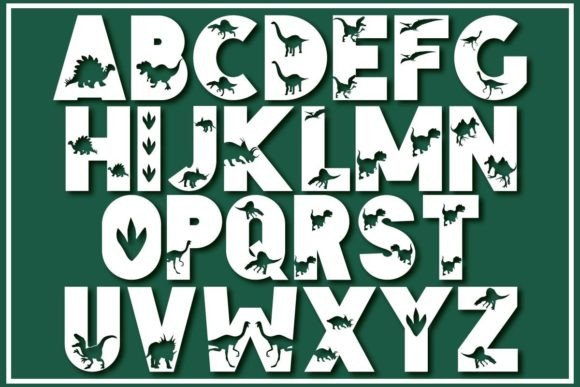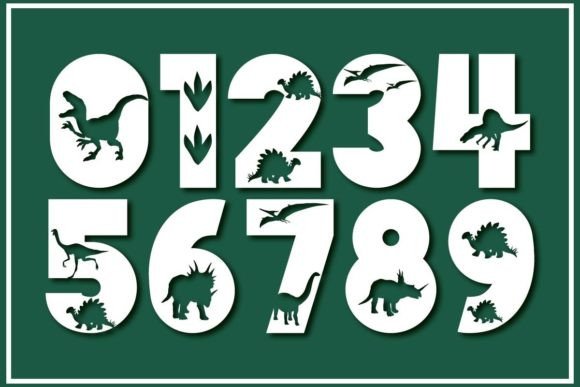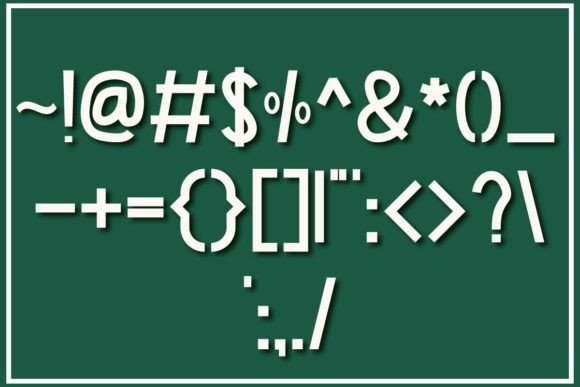
Dino Font: A Fun and Chunky Decorative Font for Crafty Ideas
Are you looking for a font that can add a touch of playfulness and whimsy to your designs? Look no further than the Dino Font, a fun and chunky lettered decorative font that features lovely dinosaurs as ornaments. This original look is perfect for a wide range of crafty ideas, from letterheads and titles to stationery.
What is Dino Font?
Dino Font is a unique and eye-catching font that combines bold, chunky letters with adorable dinosaur illustrations. The font is designed to be fun and playful, making it perfect for projects that require a touch of personality. Each letter is carefully crafted to be distinctive and easy to read, while the dinosaur ornaments add a delightful touch of whimsy.
Features of Dino Font
- Fun and playful design: The Dino Font features a fun and playful design that is sure to capture the attention of your audience.
- Chunky letters: The font features bold, chunky letters that are easy to read and perfect for titles, headings, and emphasis.
- Dinosaur ornaments: The font includes a range of adorable dinosaur illustrations that can be used as ornaments to add a touch of personality to your designs.
- Versatile: The Dino Font is versatile and can be used for a wide range of projects, from letterheads and titles to stationery and more.
Uses for Dino Font
The Dino Font is perfect for a wide range of crafty ideas, including:
- Letterheads and titles: Add a touch of personality to your letterheads and titles with the Dino Font.
- Stationery: Create fun and playful stationery, such as greeting cards, invitations, and thank-you cards.
- Signs and posters: Use the Dino Font to create eye-catching signs and posters for events, sales, and promotions.
- Digital graphics: Use the Dino Font to create fun and playful digital graphics, such as social media graphics, blog headers, and more.
Why Choose Dino Font?
There are many reasons why you should choose the Dino Font for your next project. Here are just a few:
- Unique and eye-catching: The Dino Font is a unique and eye-catching font that is sure to capture the attention of your audience.
- Easy to read: Despite its playful design, the Dino Font is easy to read and can be used for both headings and body text.
- Versatile: The Dino Font is versatile and can be used for a wide range of projects and applications.
- Fun and playful: The Dino Font is perfect for projects that require a touch of personality and whimsy.
Tips for Using Dino Font
Here are a few tips for using the Dino Font:
- Use it sparingly: While the Dino Font is fun and playful, it can be overwhelming if used too much. Use it sparingly to add emphasis and personality to your designs.
- Pair it with a simple font: Pair the Dino Font with a simple font to create contrast and make your designs more readable.
- Experiment with colors: The Dino Font looks great in a range of colors, so don’t be afraid to experiment and find the perfect color scheme for your project.
The Dino Font is a fun and chunky lettered decorative font that is perfect for crafty ideas. With its unique and eye-catching design, easy readability, and versatility, it’s the perfect choice for a wide range of projects. Whether you’re a designer, crafter, or DIY enthusiast, the Dino Font is sure to add a touch of personality and whimsy to your designs.